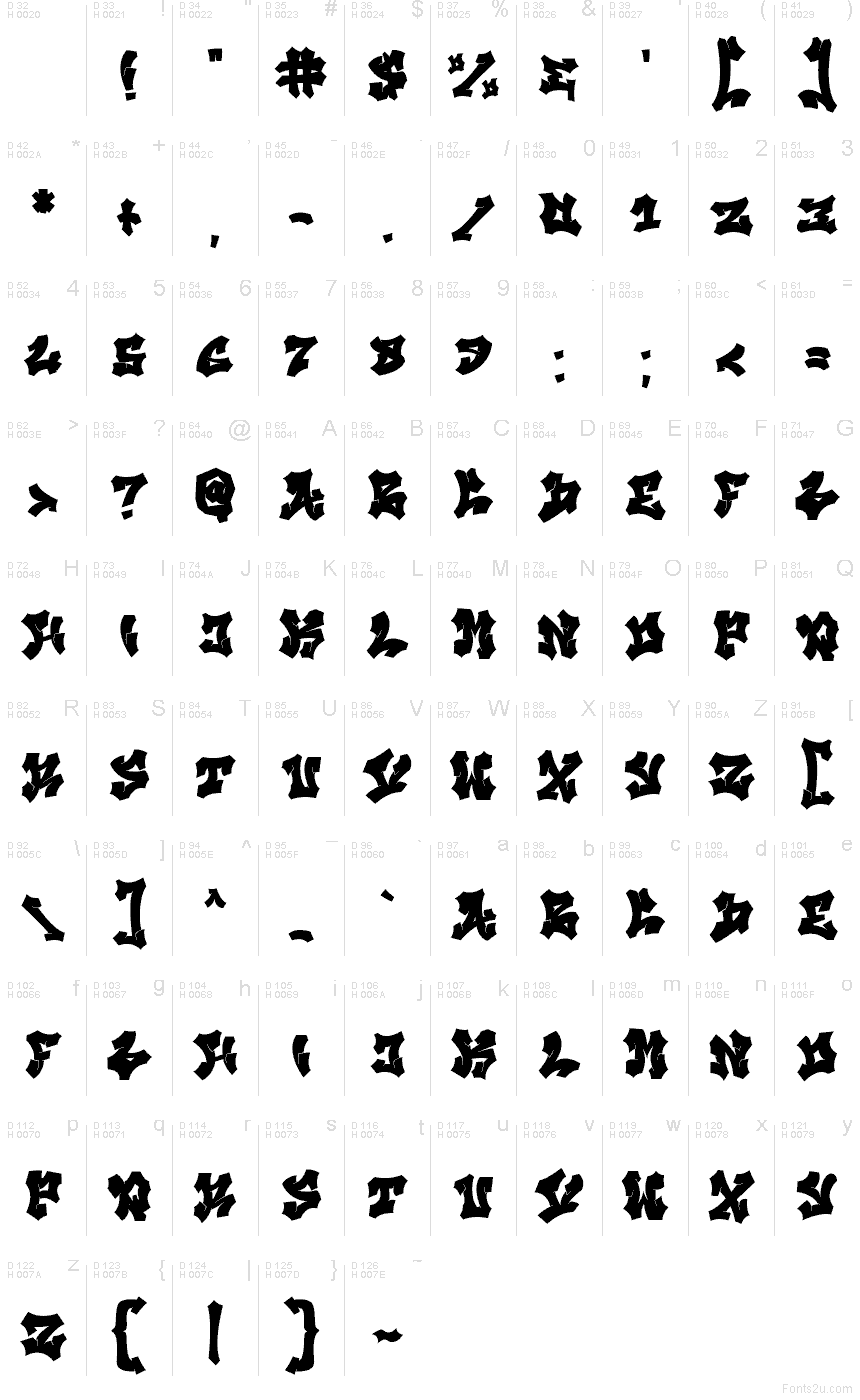
Beast Quotz Solid Solid
Beast Quotz Solid font by Muhammad Panji Ramdhani, Ferbiya Rahmat of Cikareotype in the Beast Quotz family is a free graffiti font with a blackletter bite. Its chunky, blade-cut shapes feel carved and defiant, with tight joins and spiky silhouettes that read like street tags turned medieval—bold without getting muddy.
Using Beast Quotz Solid, you’ll get punchy results on band logos, skate and streetwear graphics, album covers, gaming titles, poster headlines, sticker designs, and gritty YouTube thumbnails. Set it large with generous tracking so the sharp rhythm can breathe, then pair this free font with a clean grotesk sans for any supporting text.